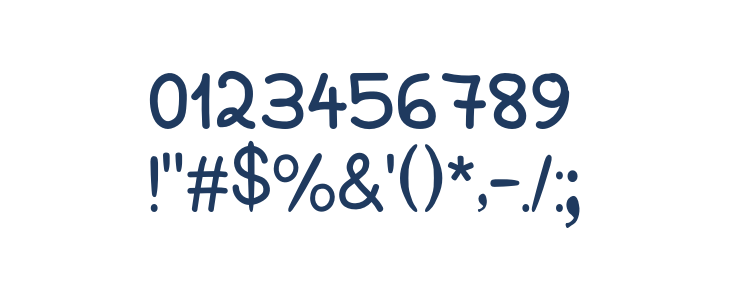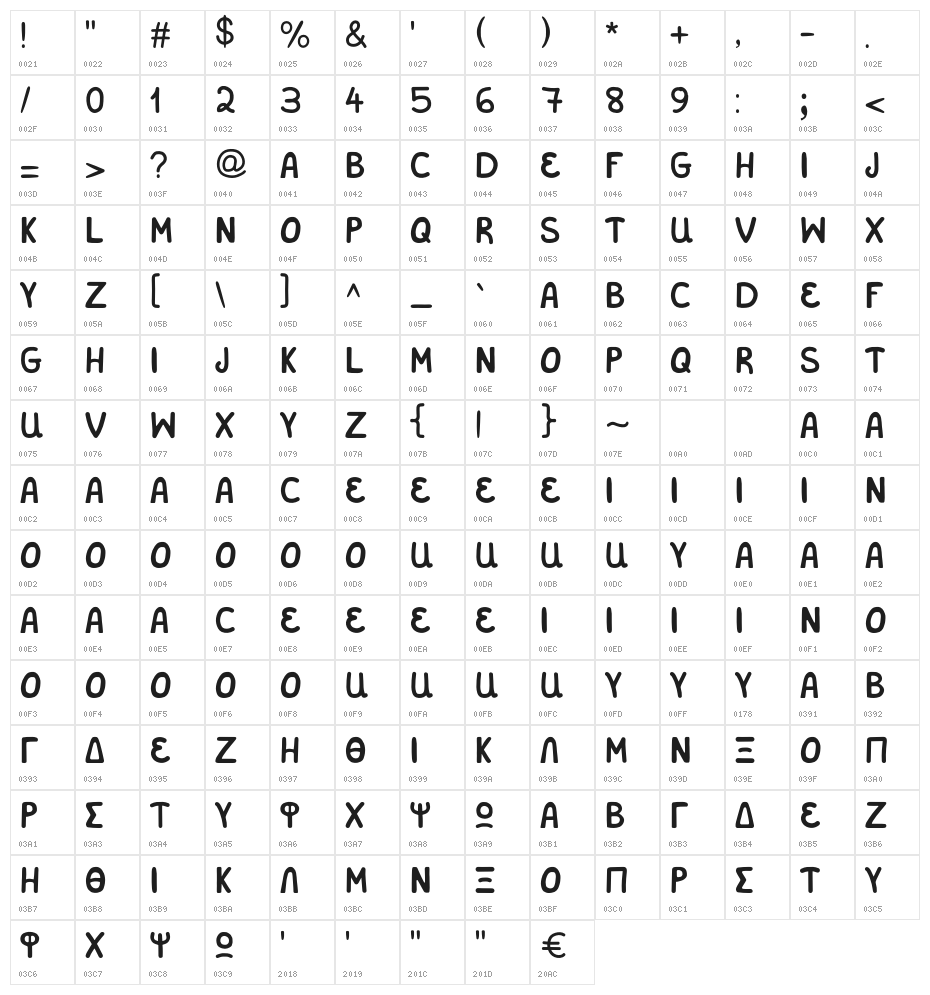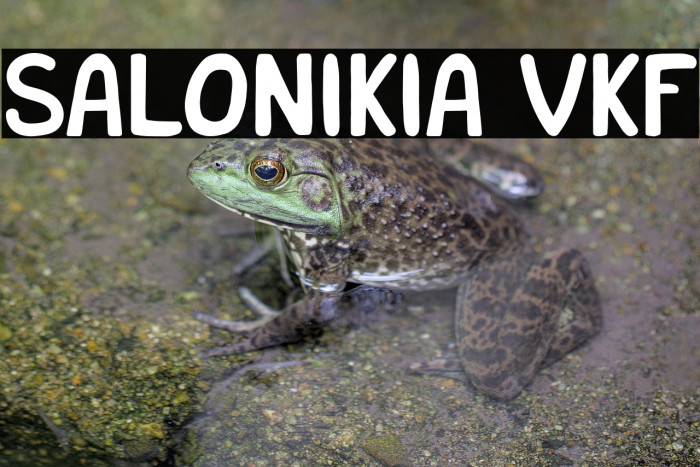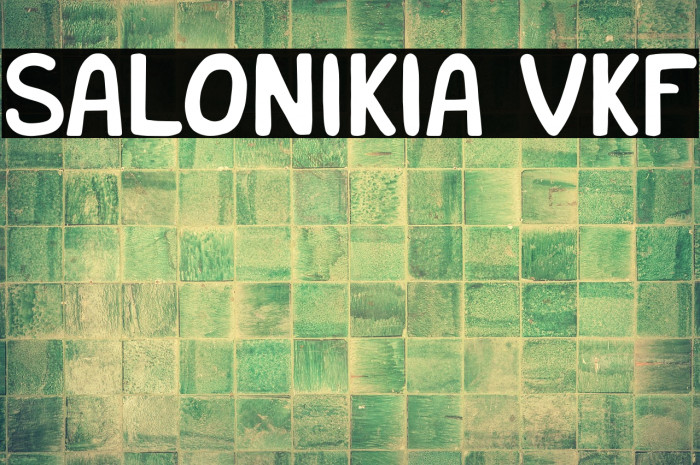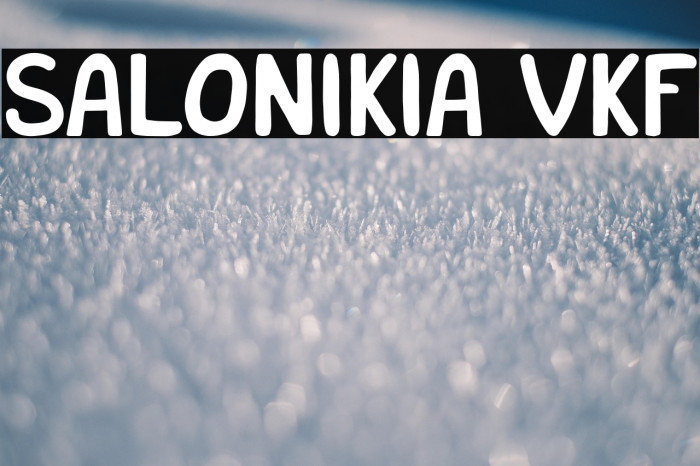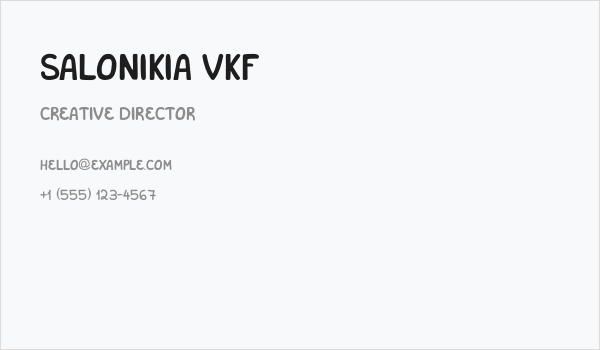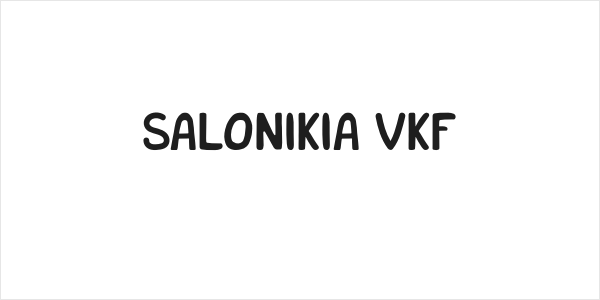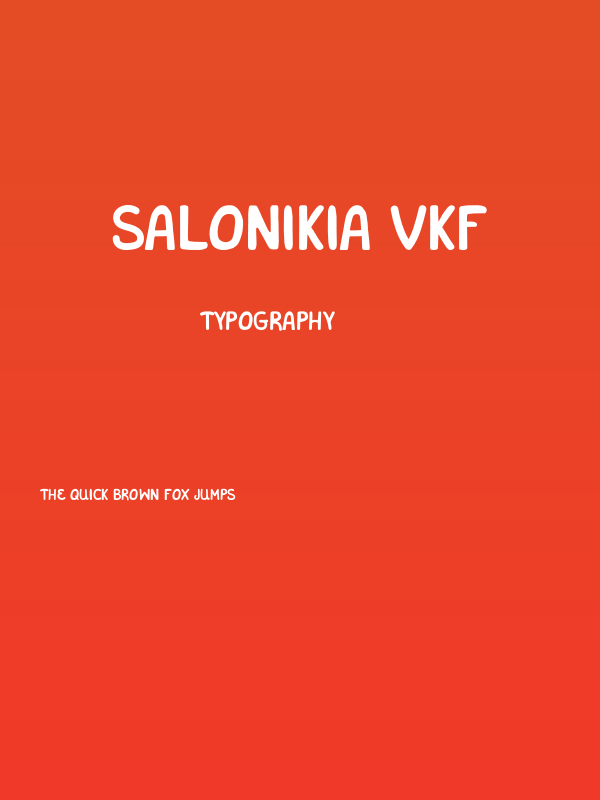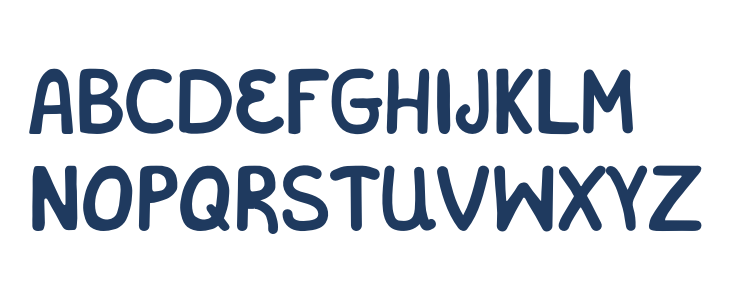
Salonikia VKF Font
Salonikia VKF Description
This playful and rounded font features a handwritten style that exudes a friendly and approachable vibe. The characters are bold and slightly irregular, giving it a casual and informal appearance. The uppercase and lowercase letters maintain a consistent style, with smooth curves and a uniform thickness throughout. The numbers and special characters are designed to match the overall aesthetic, ensuring a cohesive look across all text elements. This font is ideal for projects that require a personal touch or a fun, lighthearted feel.
| Proposed Projects | Perfect for children's books, greeting cards, playful branding, and casual invitations. |